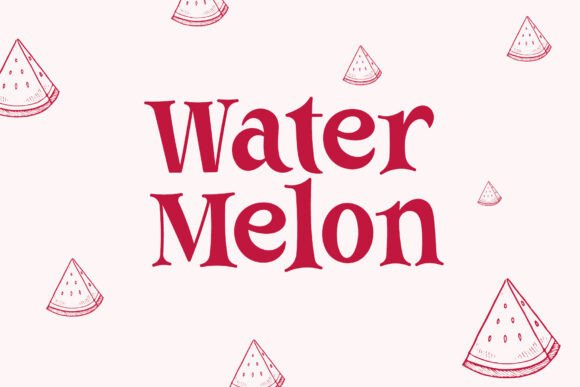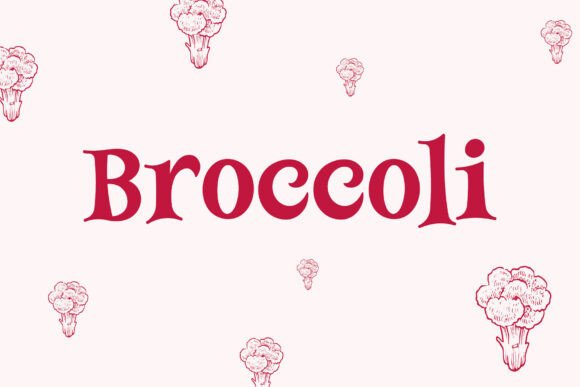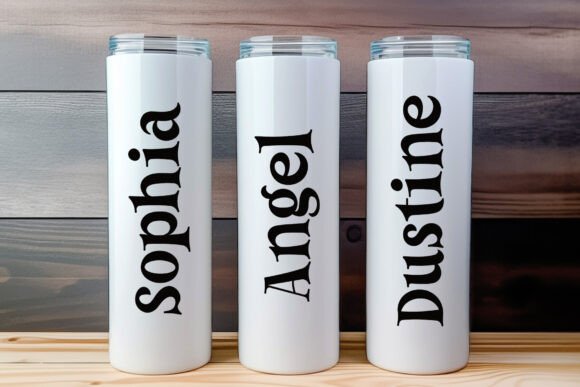
Introduction to Picker Font
Picker is cute and fun serif font.
This font radiates energetic and festive vibes Picker is suitable font for wide ranges of design with cute theme, such as t-shirt, digital planner, crafting, sticker, quotes, tumbler, sublimation, and many more.